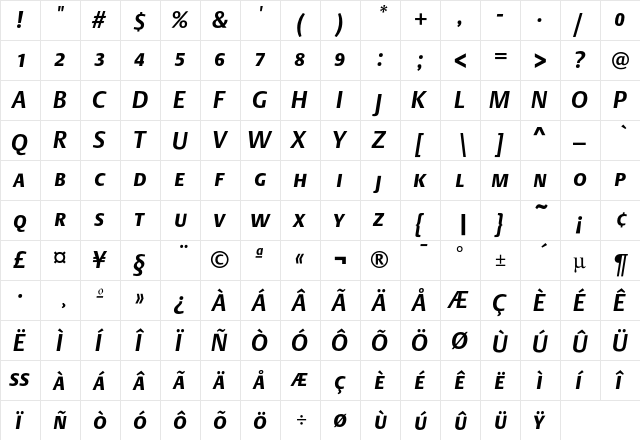
DTLArgoTCaps BoldItalic Font Preview
DTLArgoTCaps BoldItalic
Design Context for DTLArgoTCaps Typeface
DTLArgoTCaps is a composed and adaptable typeface that performs quietly and consistently across a wide range of design contexts. Its italic angle brings a sense of urgency and motion to the letterforms. The heavy weight commands attention and anchors typographic hierarchies.
Pro Tip: Use DTLArgoTCaps for emphasis, pull quotes, and subheadings where its slanted energy can add rhythm to the layout.